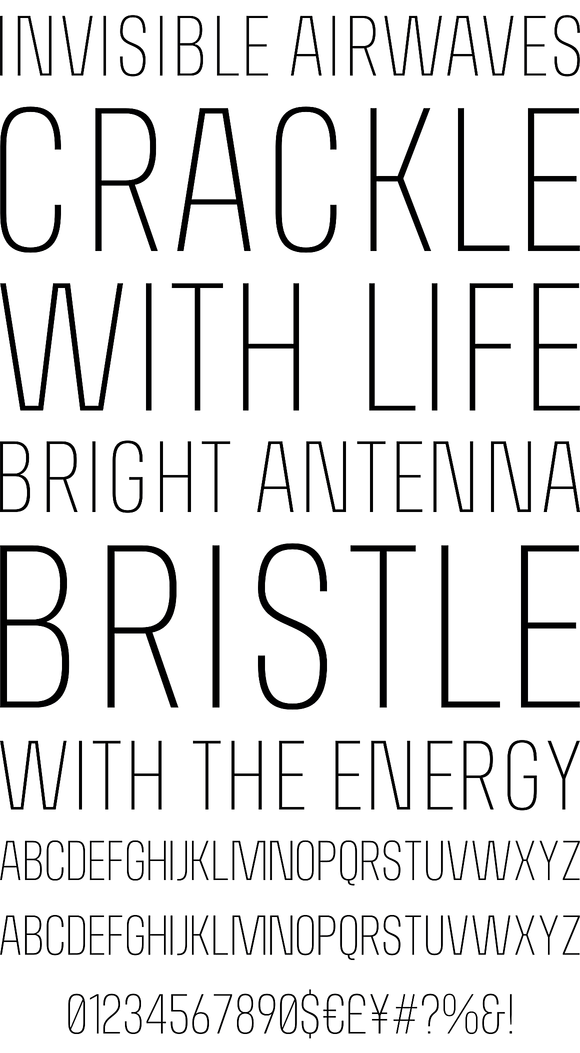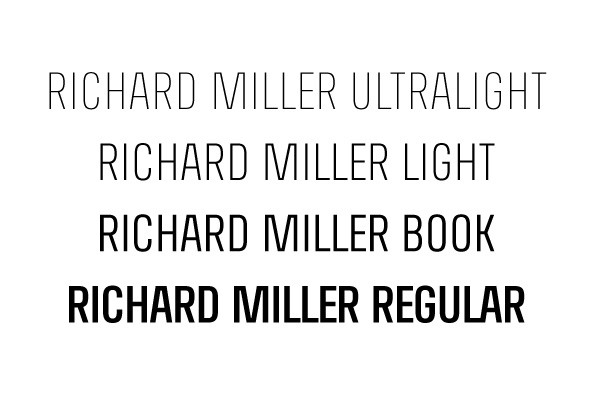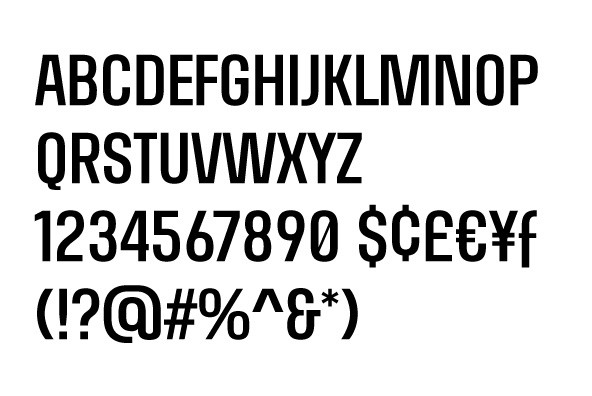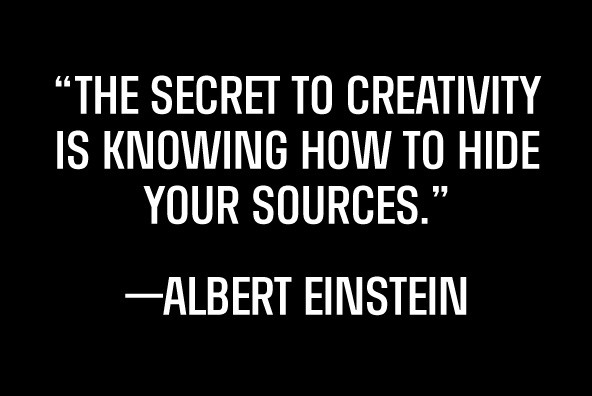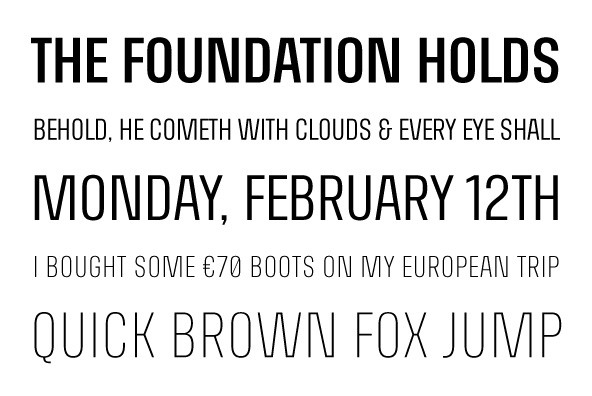
Richard Miller
Foundry: Miller Type Foundry
Richard Miller started out as a logo for a website/business card, and now is a family of 4 all caps fonts. It is a modular sans that works well in both print and web design.